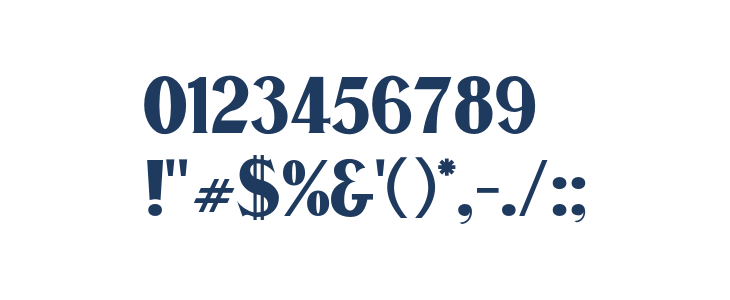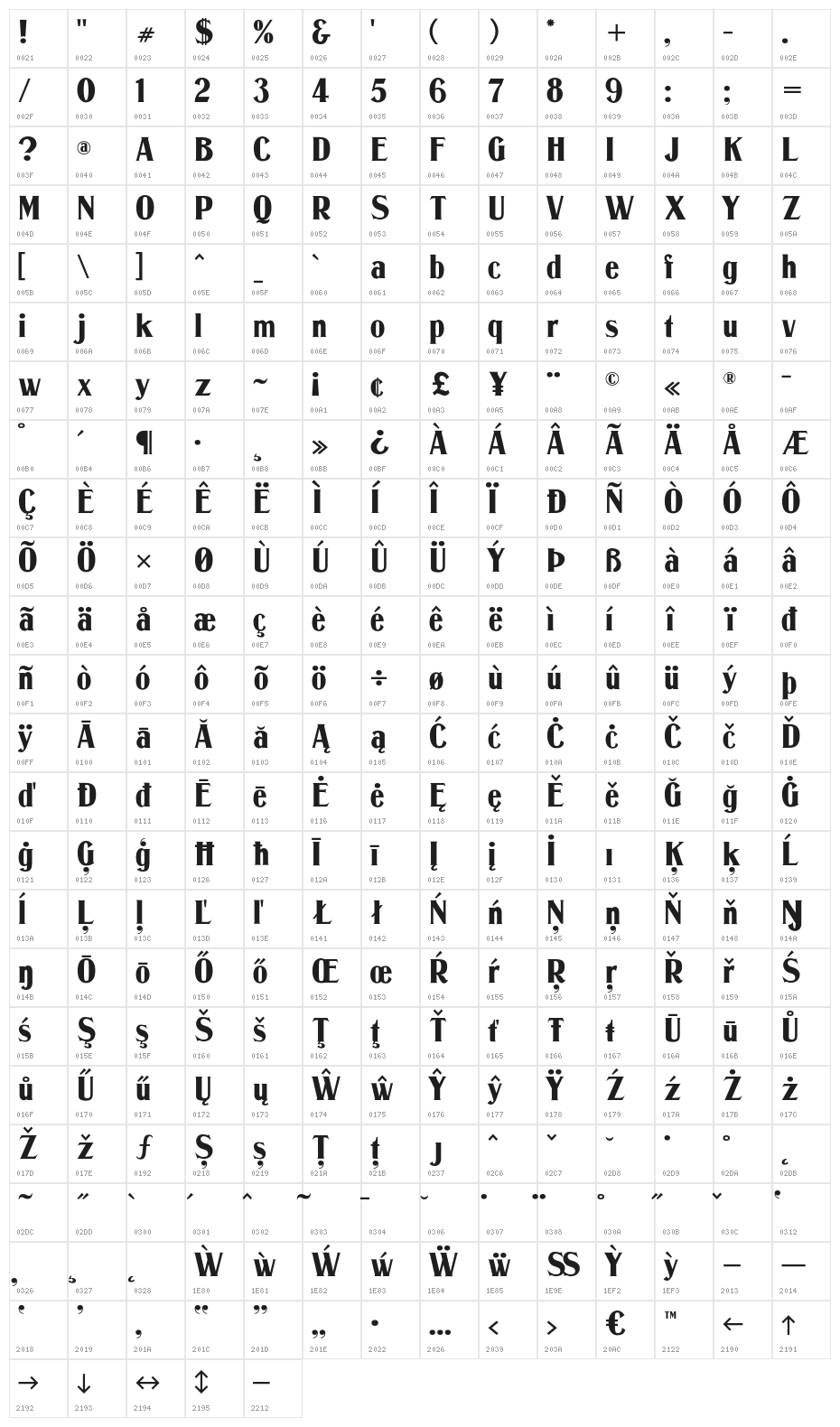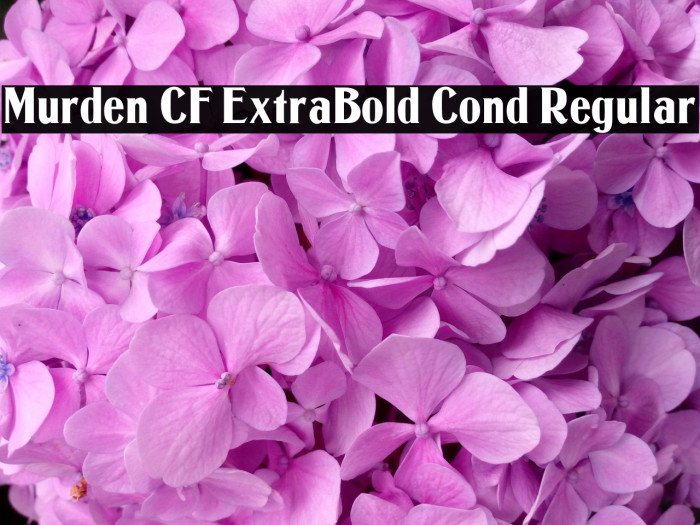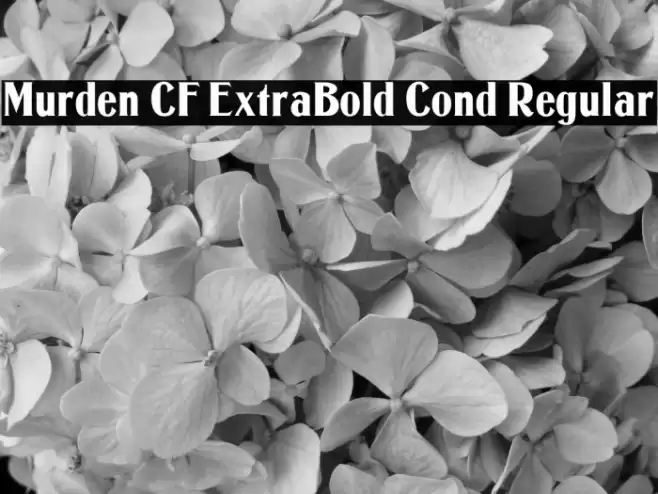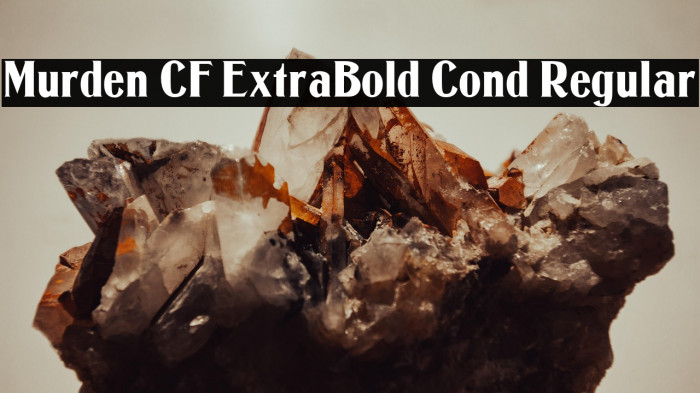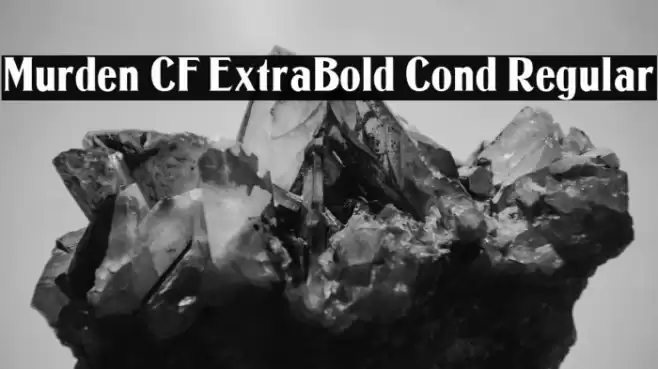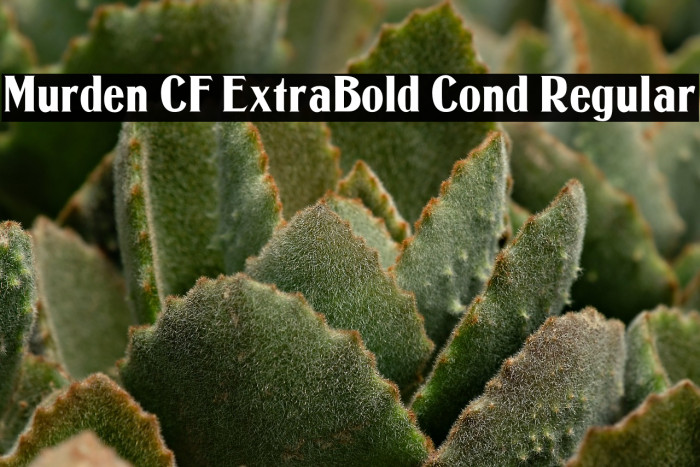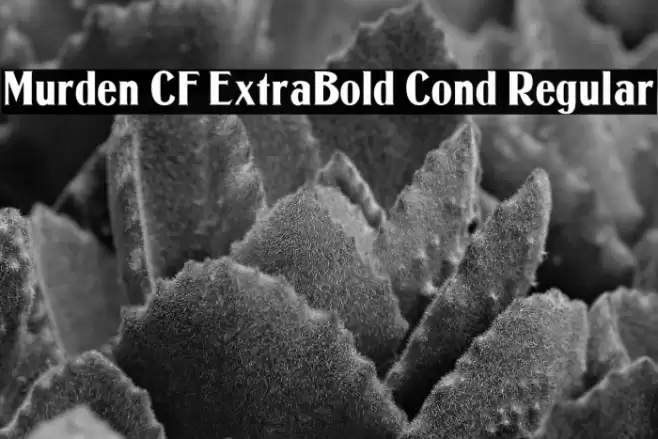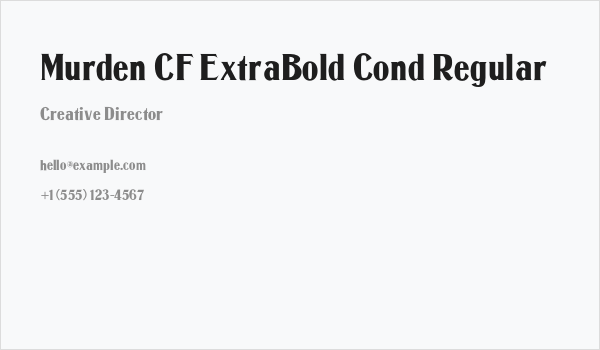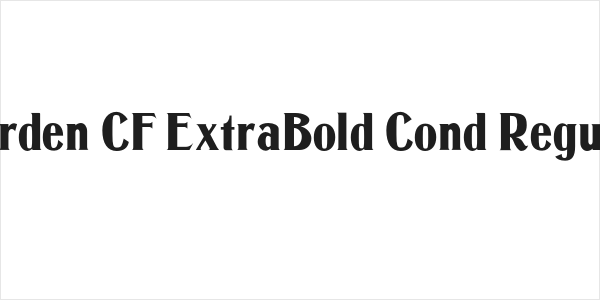
Murden CF ExtraBold Cond Regular Font
Murden CF ExtraBold Cond Regular Description
This font exhibits a bold and commanding presence with its extra-bold weight and condensed width. The characters are sharply defined, featuring high contrast between thick and thin strokes, which enhances readability and visual impact. The uppercase letters are particularly striking, with a strong, authoritative feel, while the lowercase letters maintain a consistent style that complements the overall design. The numerals are robust and clear, making them suitable for various applications. Special characters are well-integrated, maintaining the font's cohesive aesthetic. This font's style is both modern and classic, making it versatile for a range of design projects.
| Proposed Projects | Ideal for headlines, posters, branding, and any project requiring a strong visual impact. |